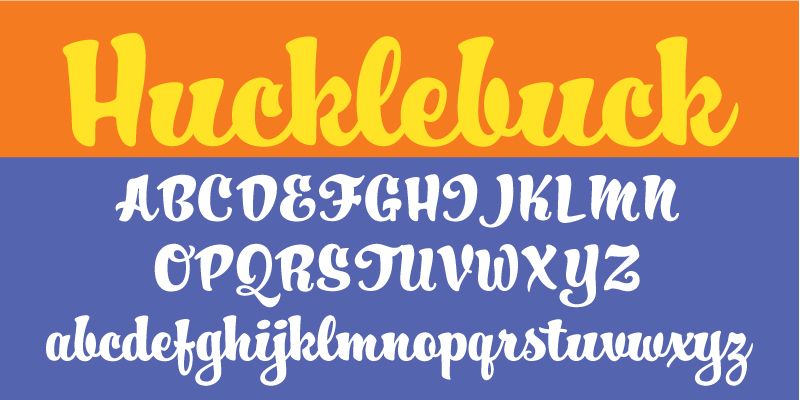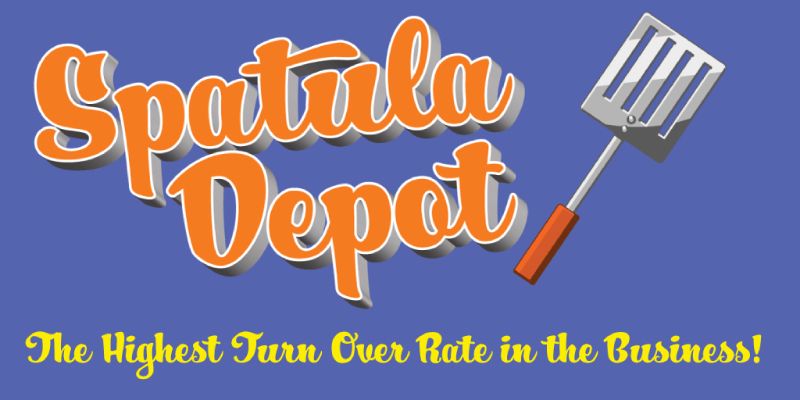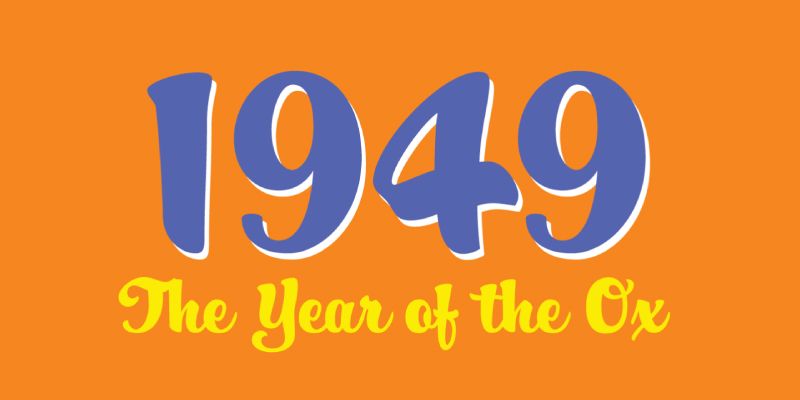
Hucklebuck is a retro script font that is immensely appealing with its happy–go–lucky feel. This Jukebox favorite was inspired by some window lettering on an old store near where the designer lived.
Jukebox
Jukebox is the brainchild of Jason Walcott, longtime type designer. Jason designed his first typeface called “Holiday Times” in the fall of 2000, and that started a long and wonderful journey that lead to the Jukebox of today.
After designing five or six more fonts, Jason started selling his typefaces on MyFonts.com in summer of 2001. At that time, his foundry went under the name of “JAW Fonts”. Several of his type designs quickly became popular on MyFonts.com and the sales grew through late 2002.
In early March of 2003, Walcott received a phone call from the then up-and-coming Veer Inc. Veer was interested in carrying his font library which then consisted of about 50 faces. The deal with Veer blossomed into a whole new venture and JAW Fonts was closed down, retooled and relaunched as Jukebox in June of 2003. The exclusive product of Veer from 2003 to 2015, Jukebox became one of the industry standards in type libraries available. Jukebox fonts have been used on countless products and designs, films, books, television productions and more, by companies such as Disney, HGTV, The Food Network, Disney Theme Parks, Hershey’s, VistaPrint and many others. In 2011 Jason’s Eloquent font family was awarded a spot in the “Best of Typeface Design” in Communications Arts Magazine’s Typography Annual.
On March 31st of 2016, Veer closed its doors forever and curation of the Jukebox library returned to Jason, who is committed to making sure Jukebox will continue to provide the design world with high-quality, professional type.